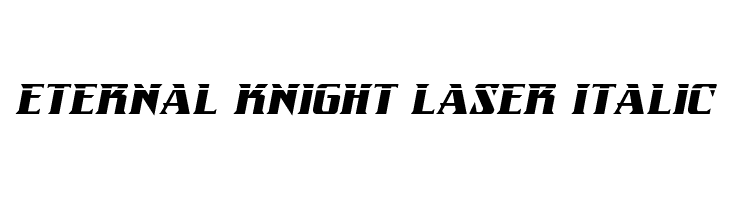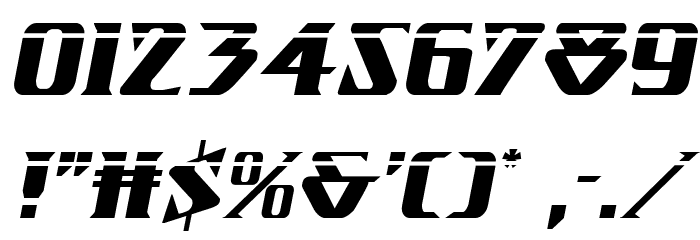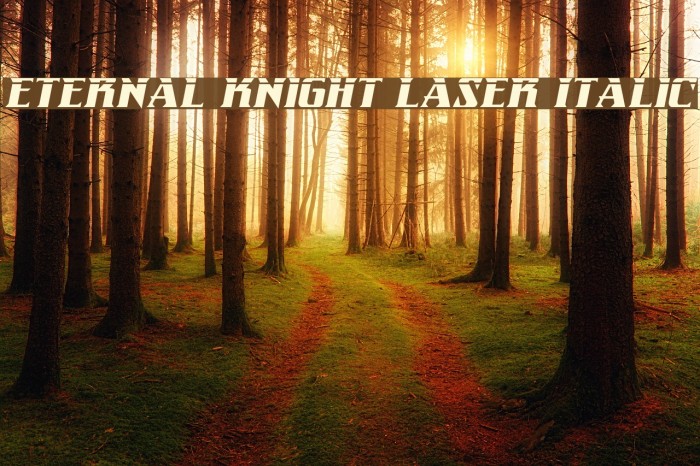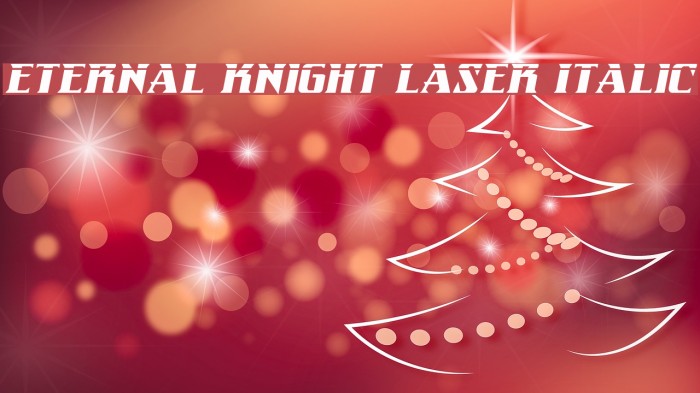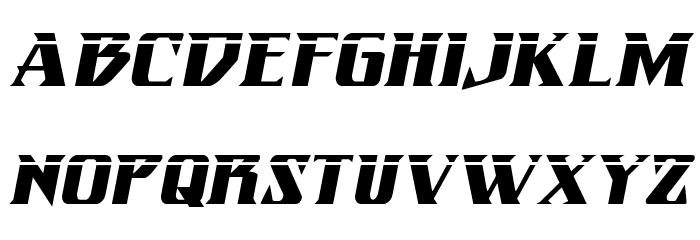
Eternal Knight Laser Italic Font
Eternal Knight Laser Italic Description
This font features a bold and dynamic design with sharp, angular edges and a futuristic aesthetic. The characters are italicized, giving a sense of motion and speed. The uppercase and lowercase letters maintain a consistent style, with each character exhibiting a unique, laser-cut appearance. The numbers and special characters follow the same design principles, ensuring uniformity across the font. The overall look is modern and edgy, suitable for projects that require a strong visual impact.
A bold, italicized font with sharp, angular edges and a futuristic style from Uncategorized fonts.
- Proposed Projects: Ideal for sci-fi themed designs, video game titles, movie posters, and branding that requires a modern, edgy look.